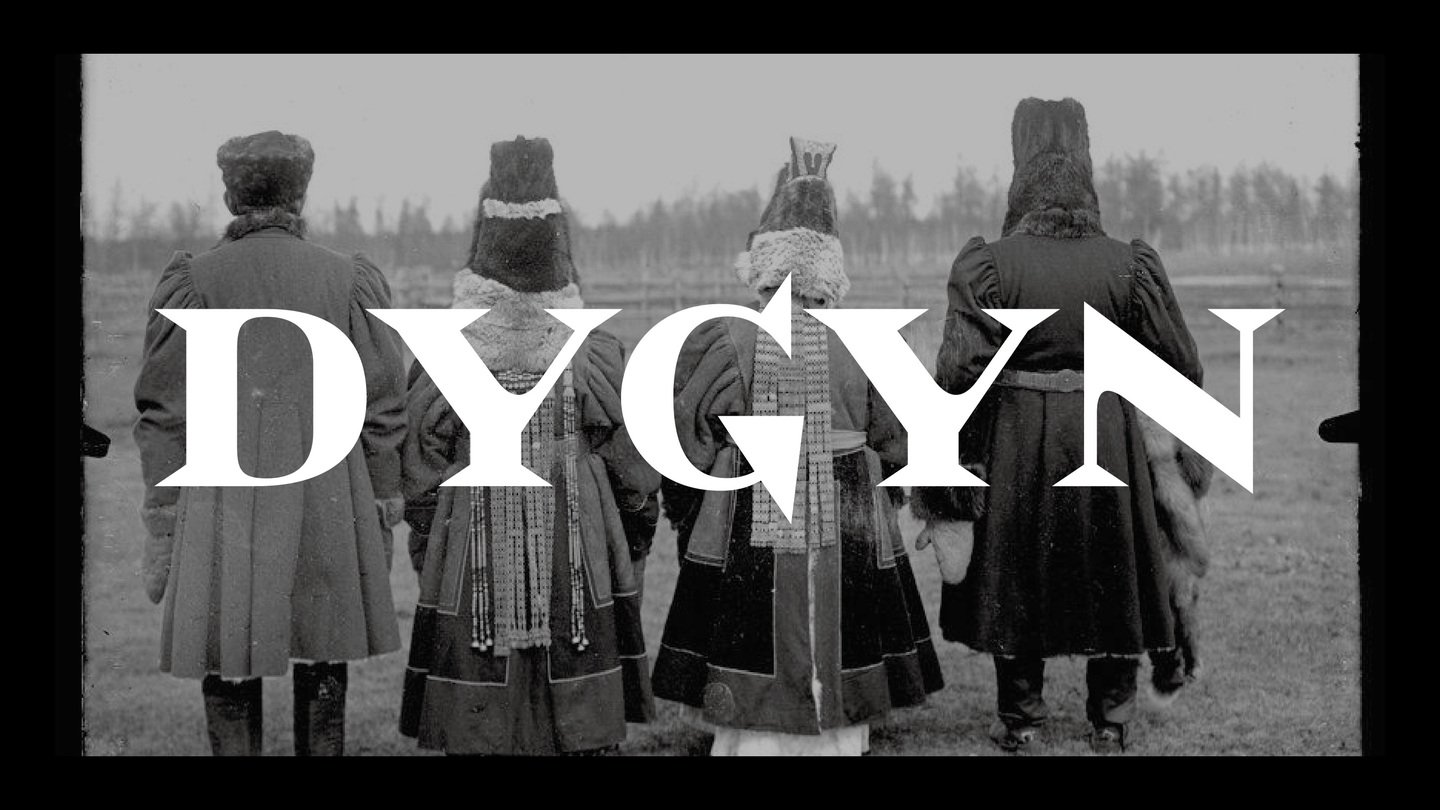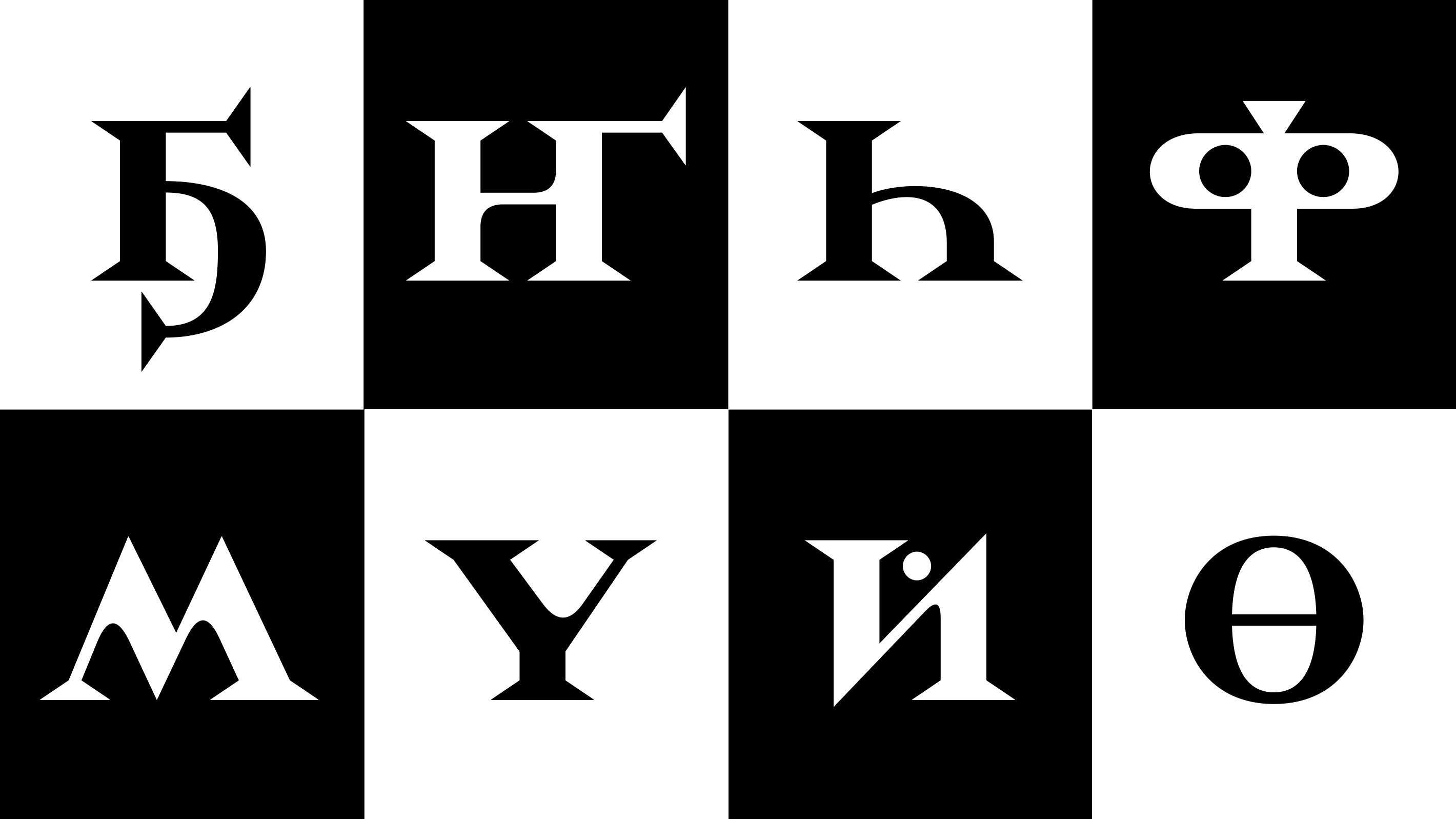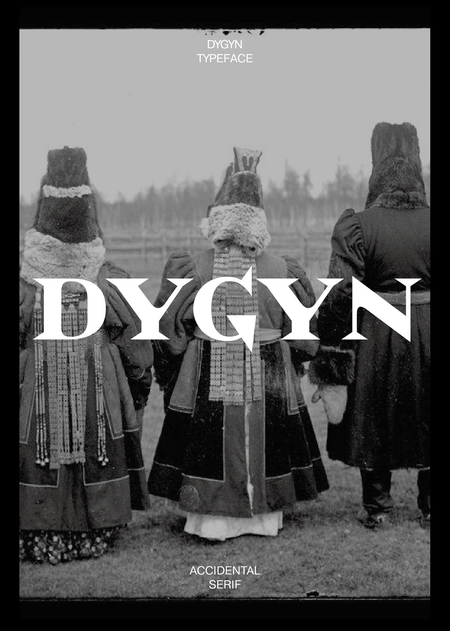
Dygyn is an acidic antique with a northern soul. A font born from the Ornaments of the Saha people, which have been passed from mouth to mouth for centuries. His forms are sent to the printing press of old Yakut books and the aesthetics of Boris Markevich. The font supports the cyrillic, Latin, numerals, and basic symbols, covering 120 languages.